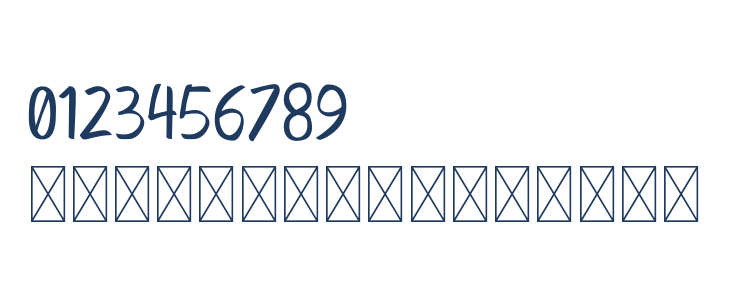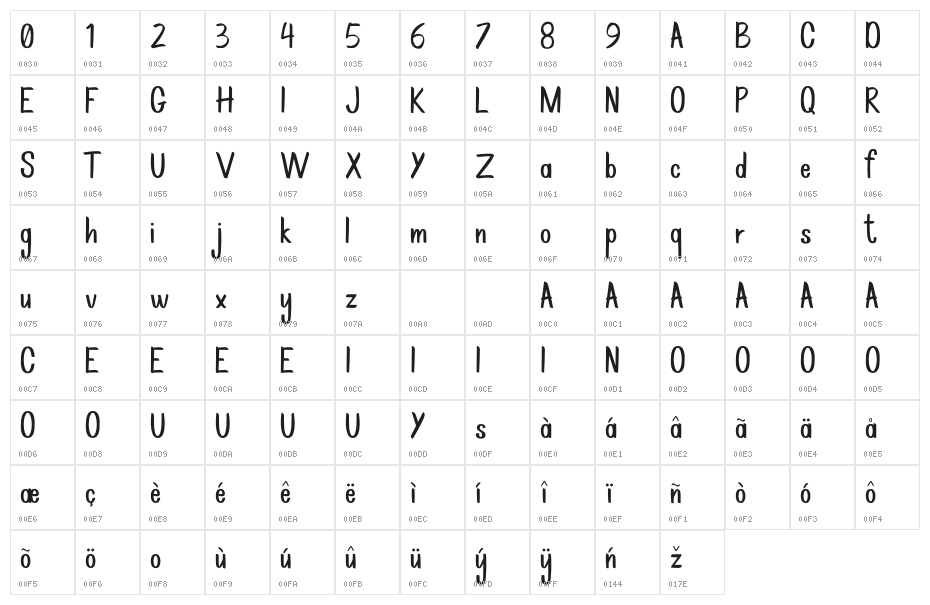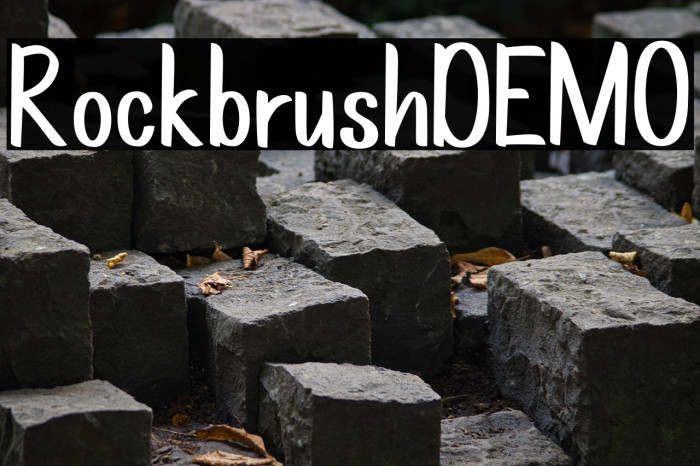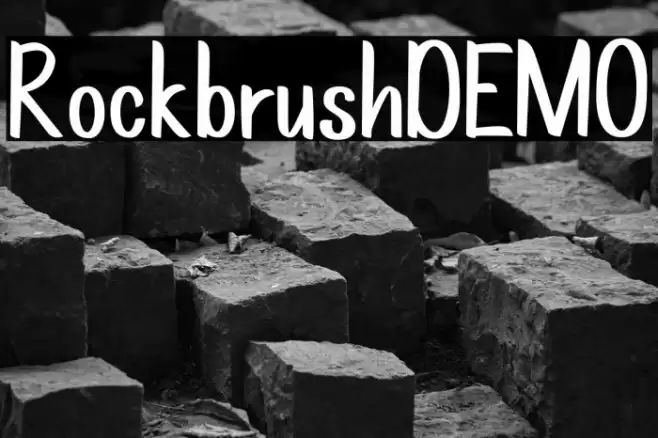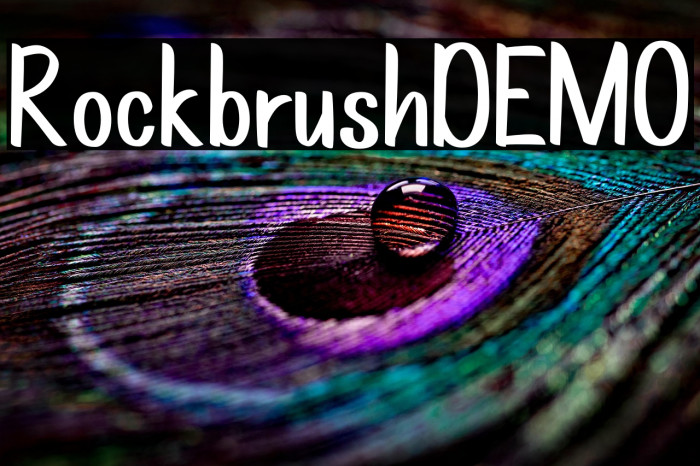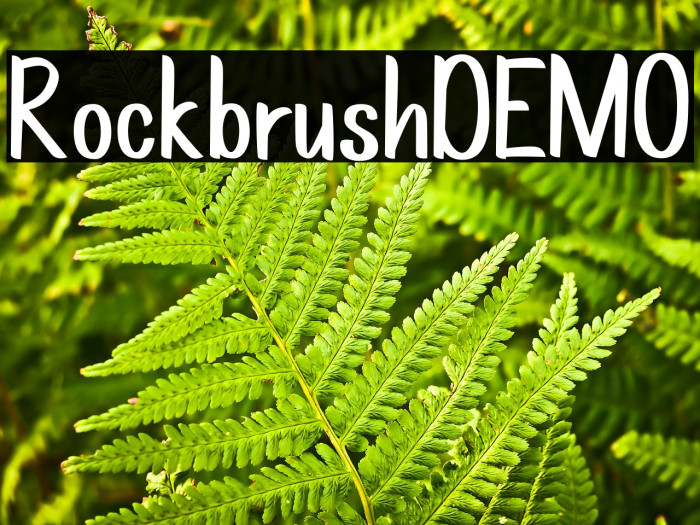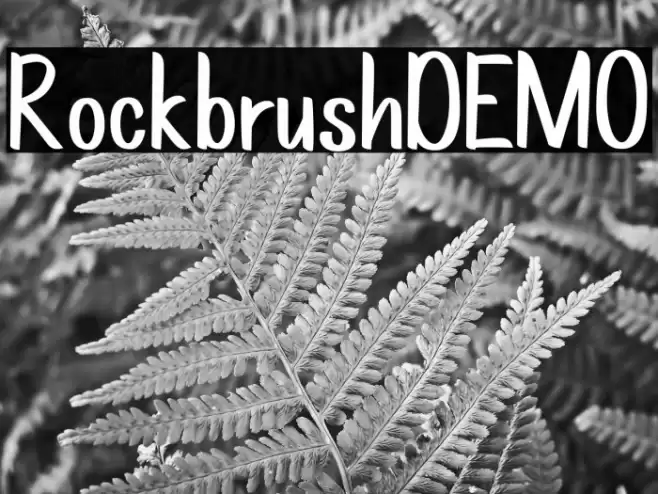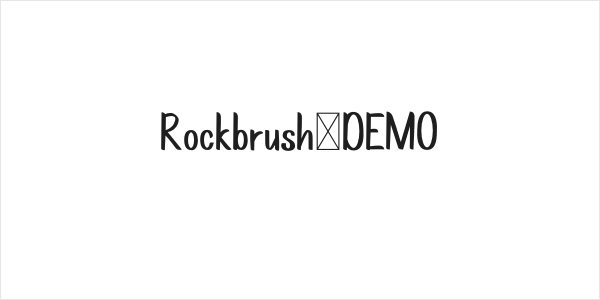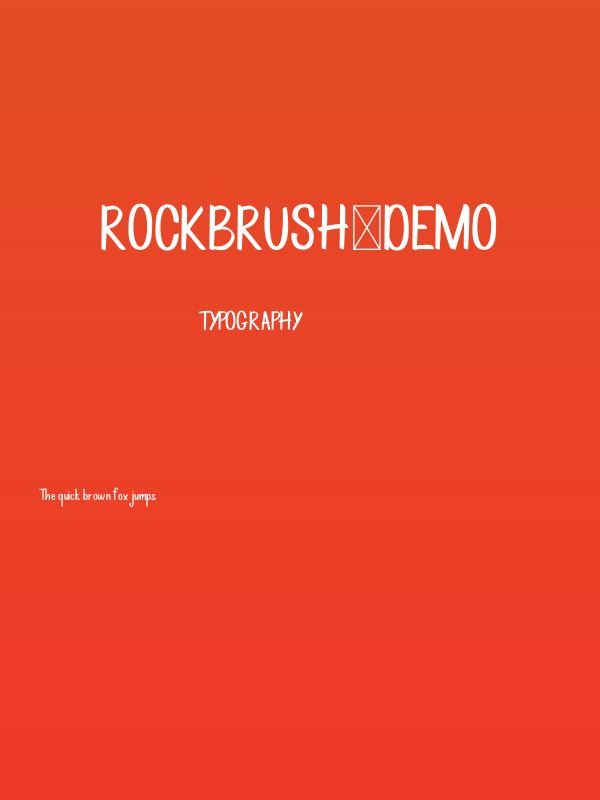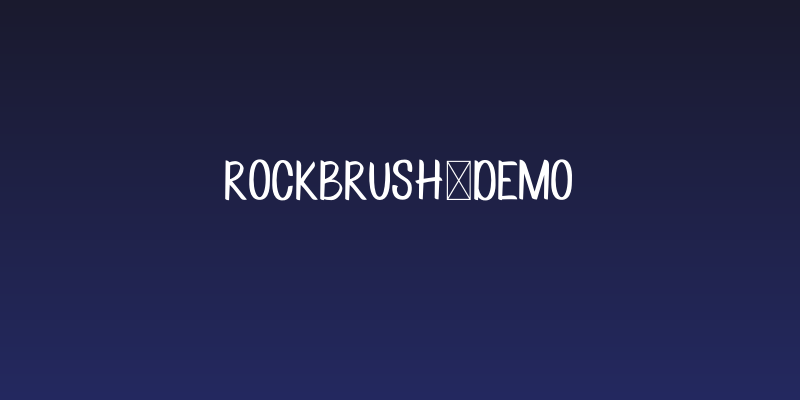
Rockbrush-DEMO Font
Rockbrush-DEMO Description
This font features a playful and energetic style, characterized by its hand-drawn appearance. The letters are bold with a slightly uneven baseline, giving it a casual and informal feel. The uppercase letters are tall and narrow, while the lowercase letters maintain a consistent height with rounded edges. The numerals are distinct and maintain the same playful style, making them easily readable. The overall design is reminiscent of brush strokes, adding a dynamic and artistic touch. This font is ideal for projects that require a personal and creative flair.